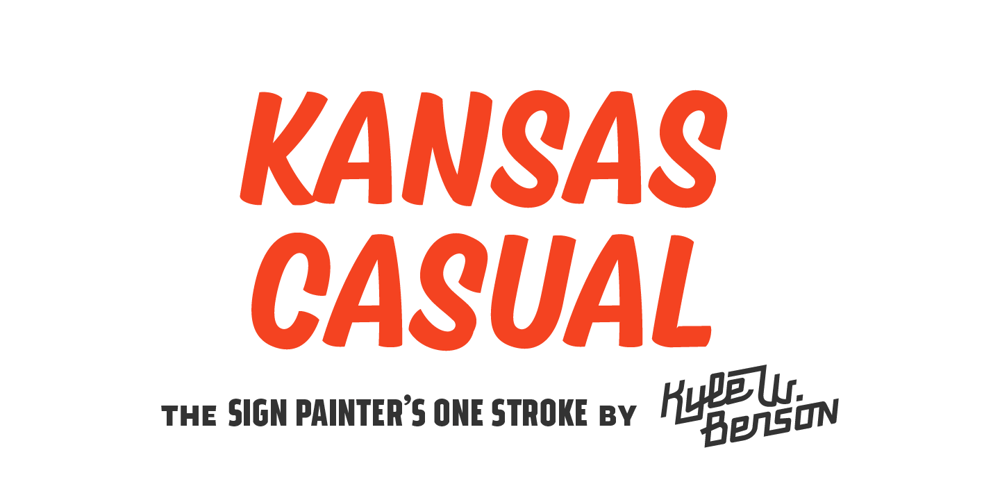
Kansas Casual
Kansas Casual font
Kansas Casual Font Family was designed by Kyle Benson and published by Kyle Wayne Benson. Kansas Casual contains 6 styles and family package options. Kansas Casual offers a more upright, gothic, and modern alternative to the conventional sign painter’s one stroke. Kansas provides a completely unique take on a overdone classic with proportions and crossbar heights inspired by the more friendly Chicago style. This all-caps set provides six weights so that you can adjust size with weight to maintain that authentic single brush weighted look. The proofing process included projecting, tracing, and then painting the letters out to see how true the small details were to the medium. The set also includes wide language support, opentype fractions, and arrows. You can learn more about its development here.